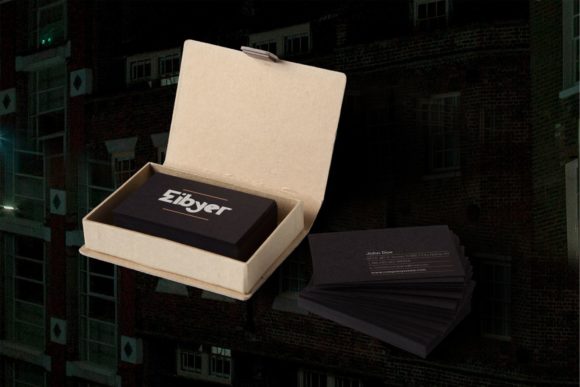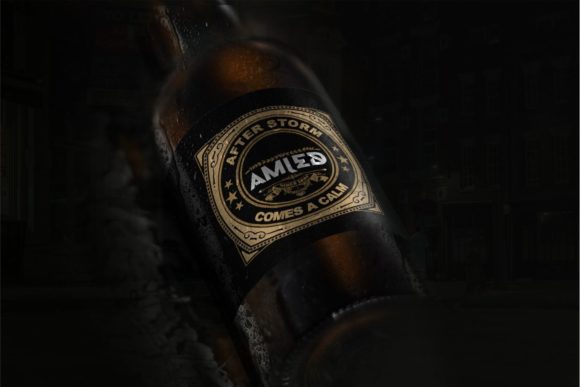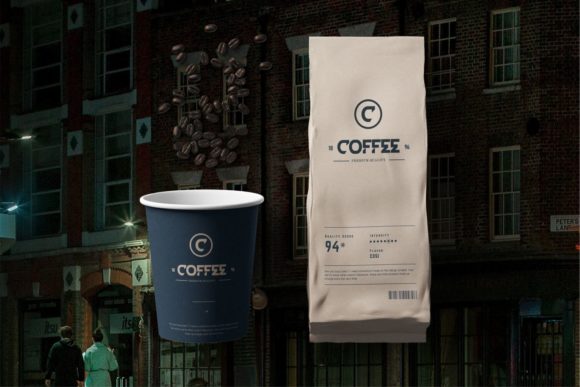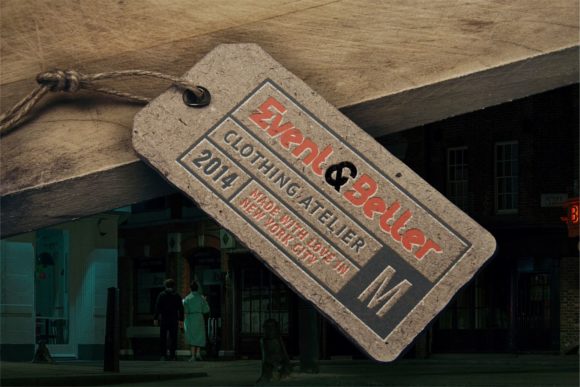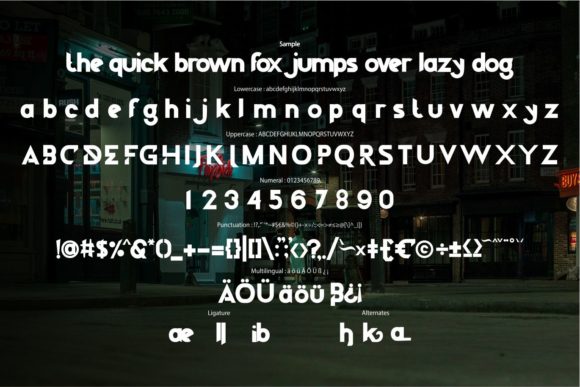
Dileto Font: Elevate Your Designs with a Modern and Bold Sans Serif
In the world of typography, fonts play a crucial role in making or breaking a design. A well-chosen font can elevate your creative project, making it stand out from the crowd. If you’re a designer or crafter looking for a modern and bold sans serif font, look no further than Dileto. In this article, we’ll explore the features and benefits of Dileto Font, and how it can be used to take your designs to the next level.
What is Dileto Font?
Dileto is a modern and bold sans serif font, designed to make a statement. Its clean lines, precise curves, and geometric shape make it perfect for a wide range of projects, from branding and advertising to packaging and digital media. Dileto’s versatility and legibility make it an excellent choice for body text, headings, and titles.
Key Features of Dileto Font
- Modern and Bold: Dileto’s sleek and contemporary design makes it perfect for projects that require a fresh and modern look.
- Sans Serif: The font’s sans serif design ensures that it remains clean and legible, even at small sizes.
- Versatile: Dileto can be used in a wide range of projects, from print to digital media, and is suitable for both body text and headings.
- Geometric Shape: The font’s geometric shape gives it a unique and distinctive look that sets it apart from other sans serif fonts.
Benefits of Using Dileto Font
So, why choose Dileto Font for your next project? Here are just a few benefits of using this versatile and modern font:
- Make Your Designs Stand Out: Dileto’s bold and modern design ensures that your project will grab attention and stand out from the crowd.
- Improve Legibility: The font’s clean lines and precise curves make it easy to read, even at small sizes.
- Increase Versatility: Dileto can be used in a wide range of projects, making it a great addition to your font library.
- Save Time: With Dileto, you can create professional-looking designs quickly and easily, without sacrificing style or quality.
How to Use Dileto Font in Your Designs
So, how can you use Dileto Font in your designs? Here are a few ideas to get you started:
- Branding and Advertising: Use Dileto to create bold and eye-catching logos, billboards, and adverts.
- Packaging: Add a modern touch to your product packaging with Dileto’s clean and geometric design.
- Digital Media: Use Dileto in your digital projects, such as websites, social media graphics, and email marketing campaigns.
- Print Media: Create stunning print materials, such as brochures, flyers, and posters, with Dileto’s bold and legible design.
In conclusion, Dileto Font is a modern and bold sans serif font that can elevate your designs and make them stand out. With its clean lines, precise curves, and geometric shape, Dileto is perfect for a wide range of projects, from branding and advertising to packaging and digital media. Whether you’re a designer or crafter, Dileto is a great addition to your font library, offering versatility, legibility, and style. So why not give Dileto a try and see how it can take your designs to the next level?
Additional Tips and Resources
Want to get the most out of Dileto Font? Here are a few additional tips and resources to help you get started:
- Pairing: Experiment with pairing Dileto with other fonts to create a unique and eye-catching look.
- Color: Use Dileto with a bold and bright color scheme to really make your design pop.